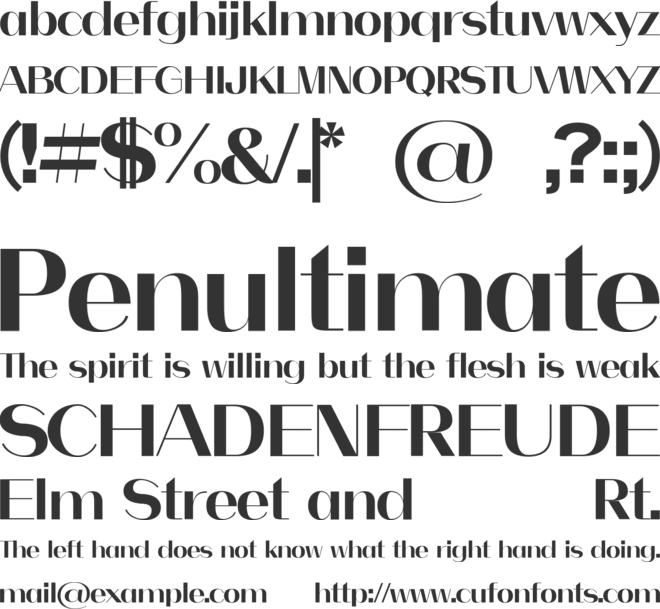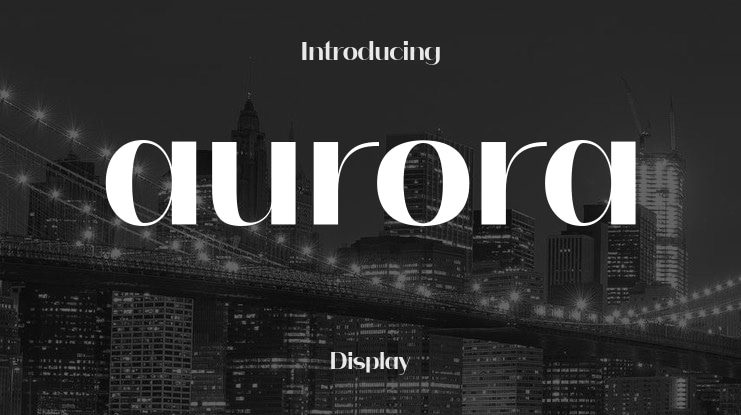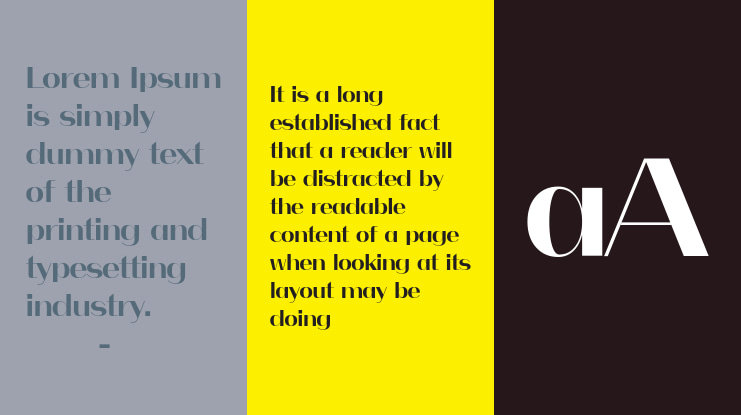
aurora Font Family
Aurora is a bold sans serif with elegant geometry and multilingual support—perfect for vintage branding, editorial layouts, and decorative packaging.